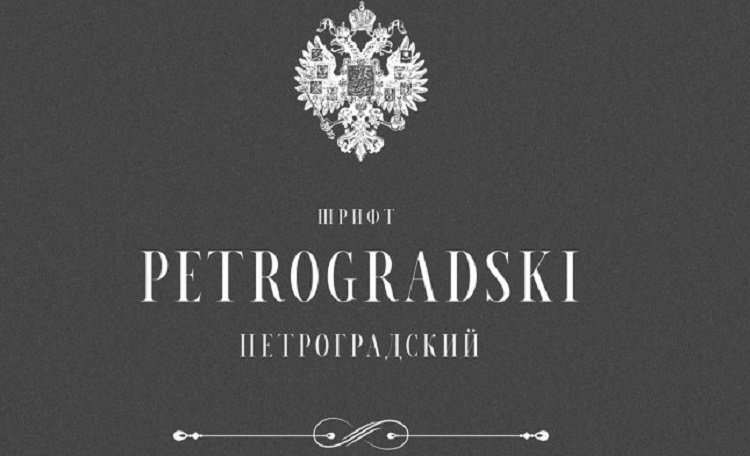
Petrogradski Serif Font Free
Petrogradski Serif Font is a serif font inspired in the Art Deco Style but with a modern twist. Featuring lovely uppercase ligatures to engage every title, logo, or branding. All caps and all the glyphs are captivating and versatile to work on any design project. Perfect for branding, titles, logos, stationery, body texts, and more.